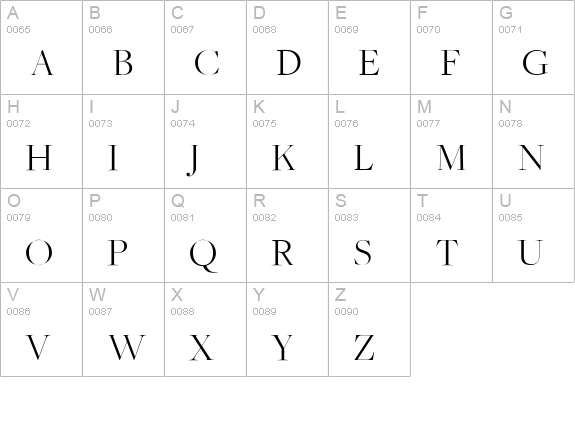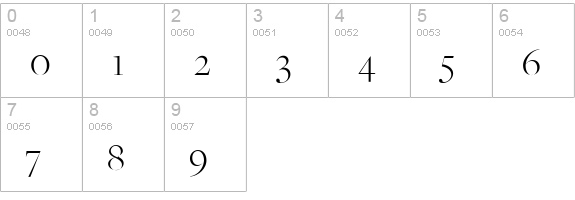
FreightBigLight font is a versatile and modern typeface that exudes elegance and sophistication. With its clean lines and gentle curves, this font is perfect for a wide range of design projects, from branding to editorial design. The light weight of the font adds a touch of delicacy and refinement to any text, making it ideal for conveying a sense of sophistication and professionalism. What's even better is that FreightBigLight font is available for free download at FontsMarket.com! That's right, you can easily access this stylish and versatile font without breaking the bank. Whether you're a seasoned designer looking to add a new font to your collection or a beginner looking to experiment with typography, FreightBigLight font is a fantastic choice. Download it today and elevate your design projects with this elegant and timeless typeface.